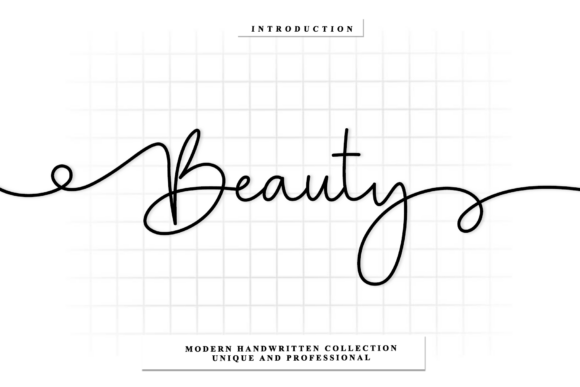
The Art of Typography: Unveiling the Beauty of Beauty Font
Have you ever stumbled upon a beautifully crafted label or packaging that stops you in your tracks? Maybe it’s the way the words seem to dance across the page, or the way the letters seem to flow like a gentle stream. For designers, these moments of creative epiphany are what drive us to push the boundaries of typography and bring our visions to life.
One of the most effective tools in our arsenal is the Beauty Font, a sophisticated and rhythmic script font that perfectly balances calligraphic style with a warm, organic aesthetic. With its sweeping, looping ascenders, this font creates a sense of customized, artisanal artistry that’s perfect for artisanal food branding, boutique product packaging, and upscale lifestyle marketing.
For designers, the Beauty Font is a valuable asset in our quest for creative expression. Its unique characteristics allow us to add a touch of elegance and sophistication to our designs, making it a premier choice for editorial titles, product labels, and more.
Key Features of Beauty Font
- Font Family: A collection of 6 fonts in the Beauty Font family, each with its unique characteristics.
- Unique Characteristics: Beauty Font features elegant, cursive script with subtle flourishes and intricate details, making it perfect for creative and design projects.
Beauty Font Review
Beauty Font is a visually stunning font that catches the eye. It’s perfect for creating a luxurious and high-end feel in your designs. ✨ The unique combination of elegant and modern elements makes it a great choice for beauty, fashion, and lifestyle brands.
- ✨ Unique and stylish design that stands out from the crowd
- ✨ Suitable for a wide range of industries, including beauty, fashion, and lifestyle
- ✨ High-quality font that’s perfect for logos, headings, and body text
- ✨ Easy to read and understand, even in smaller font sizes
- ⚠️ Limited to uppercase and title case, which may not be suitable for all types of text
- ⚠️ May not be the best choice for body text in longer articles or documents
- ⚠️ Requires careful kerning and spacing to maintain the font’s elegant feel
Overall, Beauty Font is a beautiful and eye-catching font that’s perfect for creating a luxurious and high-end feel in your designs. While it may have some limitations, it’s definitely worth considering for your next project. With careful usage and attention to detail, Beauty Font can elevate your designs to the next level.
Alternatives to “Beauty Font” for Designers
Playfair Display is an elegant, high-end serif font ideal for luxury branding, magazines, and high-end advertisements. It features intricate details and a classic feel. When to use: For projects that require sophistication and luxury, such as high-end fashion, jewelry, or fine dining.
Comparison to Beauty Font: While both fonts are elegant, Playfair Display is more formal and traditional, whereas Beauty Font is more modern and sleek. Playfair Display is better suited for projects that require a classic, high-end feel.